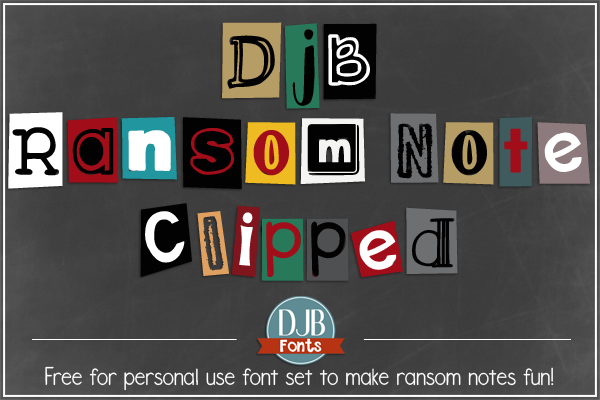
Preview and download DJB Ransom Note Clipped Font. Created by Darcy Baldwin in Fancy Decorative styles with Free for personal use license.
A ransom note font on clipped paper for a more realistic look. If you'd like a version that is without the clipped look, try this: http://www.dafont.com/djb-ransom-note.font This font is free for personal use only. If you'd like to purchase it for commercial use, please purchase a license at: http://darcybaldwin.com/commercial-use/ https://www.facebook.com/darcybaldwinfonts/ |